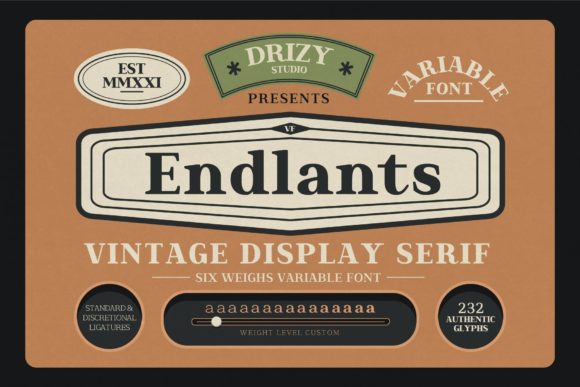
Prepare yourself to be captivated, for the Endlants font is here to ignite your creativity and elevate your designs to extraordinary heights! Drizy Studio, the masterminds behind this typographic masterpiece, have meticulously crafted each character with a vintage charm that oozes sophistication. Let your words dance across the page, enveloped in the timeless elegance of Endlants.
Whether you're weaving captivating tales for your readers, composing formal business documents, or crafting eye-catching marketing materials, Endlants adapts seamlessly to suit your every need. Its versatility knows no bounds, making it the perfect companion for a symphony of design projects. Dive into the world of Endlants, and discover a font that will transform your creations into works of art.
Imagine your website adorned with the captivating allure of Endlants, enticing visitors with its vintage flair and inviting them to embark on a journey through your digital realm. Let your social media posts shimmer with the elegance of Endlants, captivating your audience with every captivating message. Embrace the power of Endlants, and let your words take flight, soaring above the ordinary and making an unforgettable impression.
Dive into the world of Endlants and prepare to be spellbound by its enchanting aura. Feel the warmth of nostalgia as your designs take on a timeless charm, evoking a sense of history and tradition. Experience the joy of effortless creativity as your words flow seamlessly, guided by the graceful curves and delicate lines of Endlants.
Embrace Endlants today and embark on a creative adventure that will leave an everlasting mark on your designs. Let your wordsmith skills shine brighter than ever before, adorned with the vintage elegance of this extraordinary serif font. Experience the magic of Endlants, and transform your design dreams into extraordinary realities!